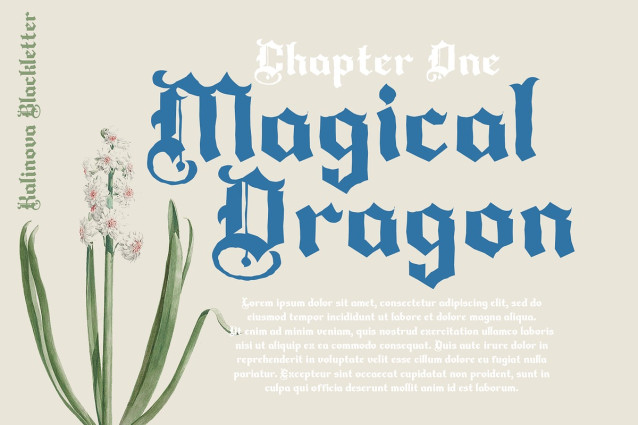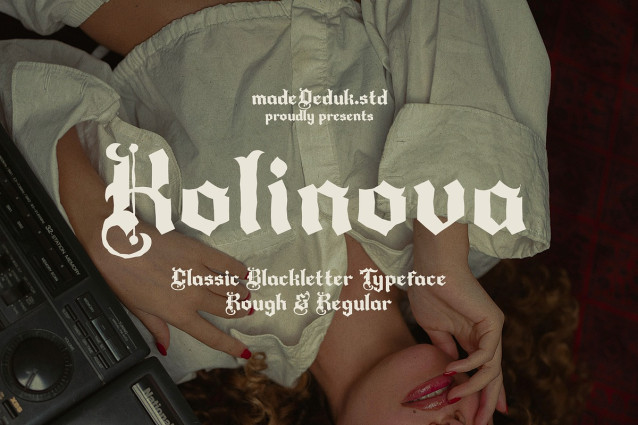
Kolinova Blackletter Font
Kolinova Blackletter Font – a classic black typeface characterized by bold, dramatic strokes and intricate details. Each character in this font has been meticulously crafted to enhance your text with a strong, vintage charm. This font comes with a rich collection of ligatures and alternate characters. This font is perfect for branding, logos, book covers, magazines, apparel design, headlines, and more.